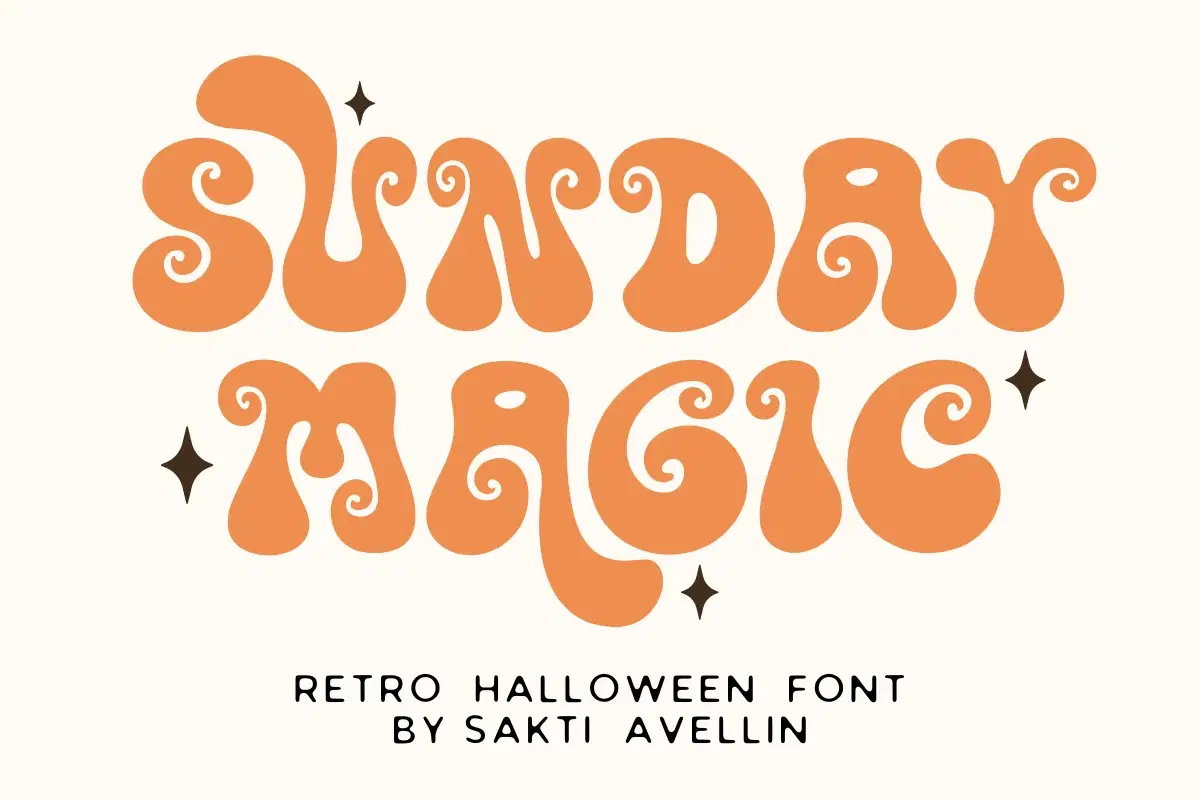
Sunday Magic is an incredibly fun, fluid, and groovy display font that captures the playful, psychedelic aesthetic of the 1970s. This bold retro Halloween font features mesmerizing swirls and exaggerated curves, making it essential for vintage branding, fun feminine logos, retro posters, Halloween t-shirt designs, and engaging social media graphics. Its distinctive, thick style ensures it is a powerful display typeface for headlines and product packaging, appealing to a trendy audience that loves nostalgic funk, boho style, and trippy design. Bring a touch of magic to your creative projects with this truly enchanting and modern groovy font!